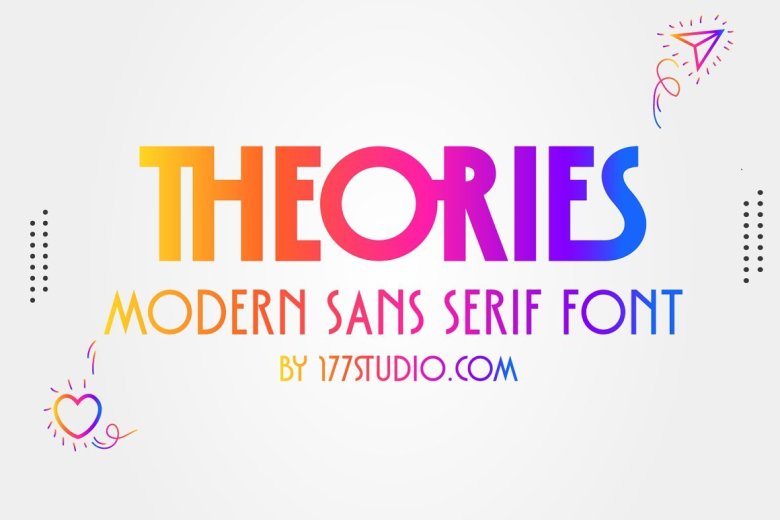
Theories Font
Theories – Modern Sans Serif Font is an elegant and modern sans serif font. Theories Font combines perfect mix of new and old styles. It’s a very versatile font that works great in large and small sizes. Perfect for branding projects, Logo design, Clothing Branding, product packaging, magazine headers, or simply as a stylish text overlay to any background image.